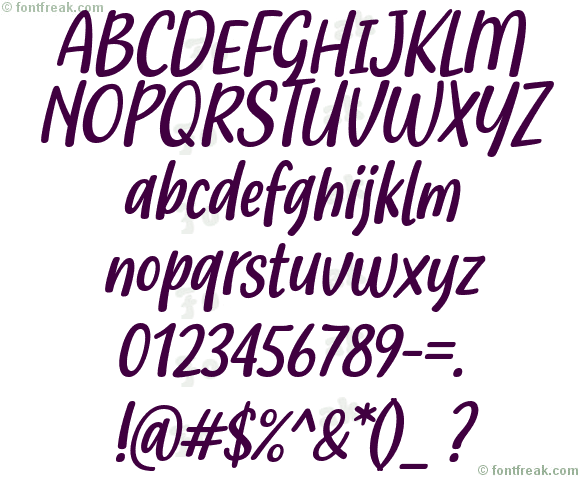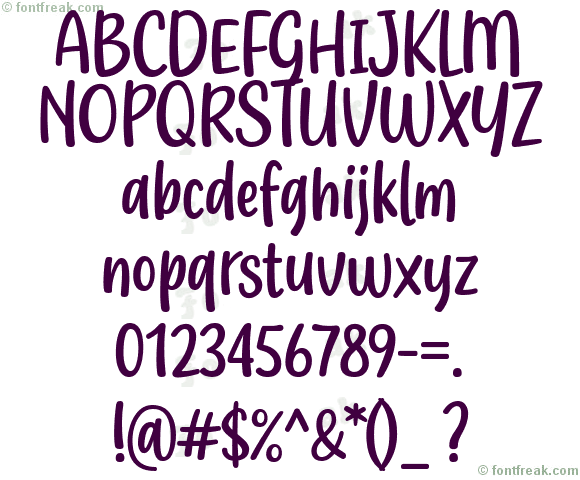
Lady Nature
Lady Nature Italic
The Lady Nature font by Situjuh Nazara is a captivating handwritten style that embodies a natural, organic aesthetic. With its fluid strokes and gentle curves, this font brings a warm, inviting feel to any design project. The stroke weight is moderate, providing a balanced look that is neither too bold nor too delicate, while the slight contrast enhances its legibility. The spacing is well-considered, allowing for easy readability without compromising the font's artistic flair. Decorative elements, such as subtle flourishes at the ends of some letters, add a touch of whimsy, making it perfect for designs that aim to connect with nature or evoke a sense of tranquility.
Lady Nature is an excellent choice for various creative applications. Its charming character makes it ideal for wedding invitations, where it can convey romance and elegance. It also fits beautifully on restaurant menus, particularly for establishments that focus on organic or farm-to-table cuisine. Additionally, graphic designers can utilize this font in branding projects for eco-friendly businesses or artisanal goods, as it reflects a commitment to sustainability. Content creators looking to enhance their blogs or social media posts will find that Lady Nature adds a personal touch that resonates with audiences.
Ultimately, what sets Lady Nature apart is its unique blend of elegance and informality, making it a versatile tool for anyone looking to capture the essence of nature in their typography. Whether used in print or digital formats, this font stands out as a perfect choice for designs that aim to inspire and connect.